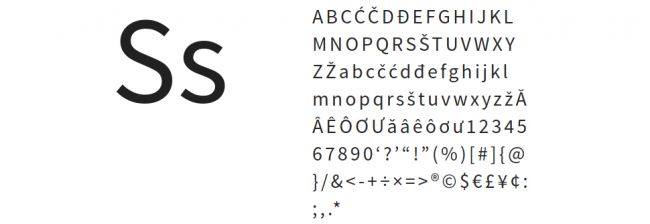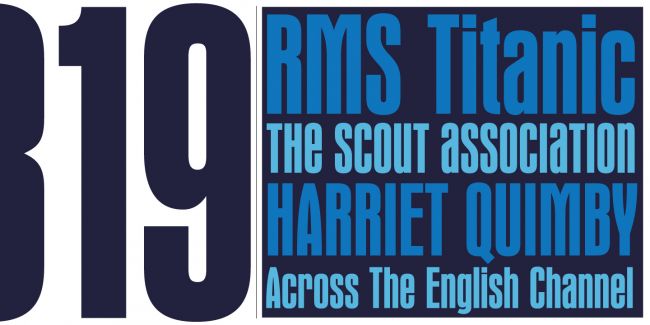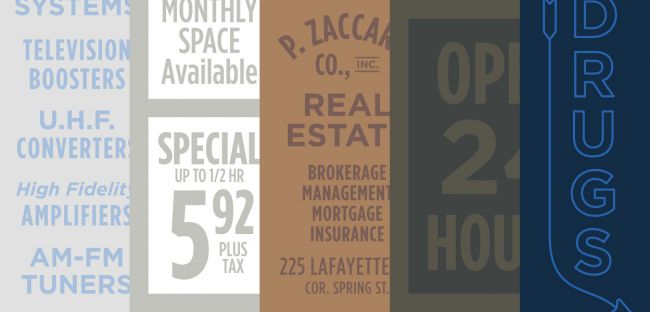
21 fonts every graphic designer should own
Give your graphic design work a boost with these brilliant fonts.
14. Gotham
Tobias Frere-Jones' assertive, geometric sans-serif was inspired by New York's architectural signage of the mid-20th century. Initially commissioned by GQ magazine, Gotham has been used everywhere from Barack Obama's 2008 presidential campaign to the One World Trade Centre, and is available in four widths.
15. Wagner Grotesk
Canada Type's original intention with this extensive redesign of Edel Gothic/Grotesque was to update, enhance and adapt the early 20th century typeface for use on digital platforms. Accordingly, Wagner Grotesk is particularly well-suited to screen use, although its impact and legibility ensure it works hard on posters and in headlines, too.
16. Source Sans Pro
Released in 2012, Source Sans Pro was the first open source type family for Adobe, and has proved wildly popular. It was envisioned as a classic grotesque typeface with a simple, unassuming design. It was designed by Paul D. Hunt, who continues to work as a type designer at Adobe, and is available for free.